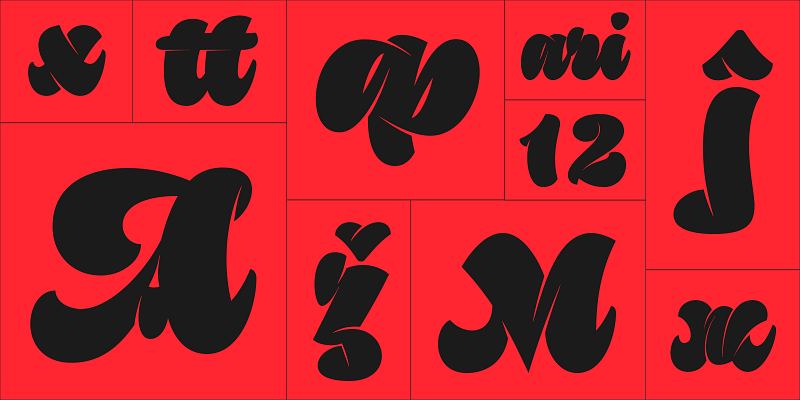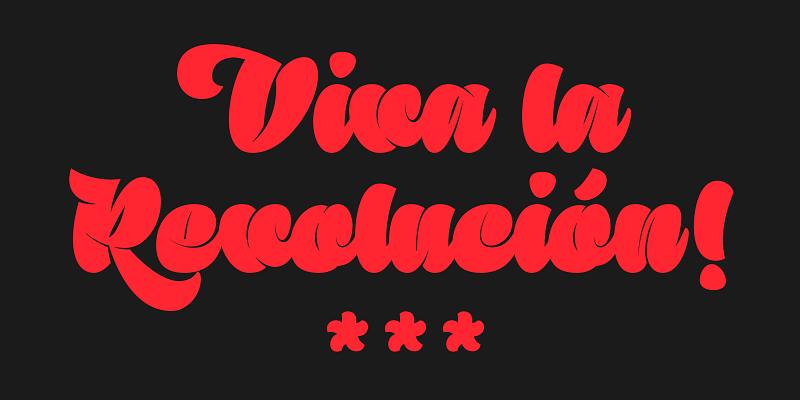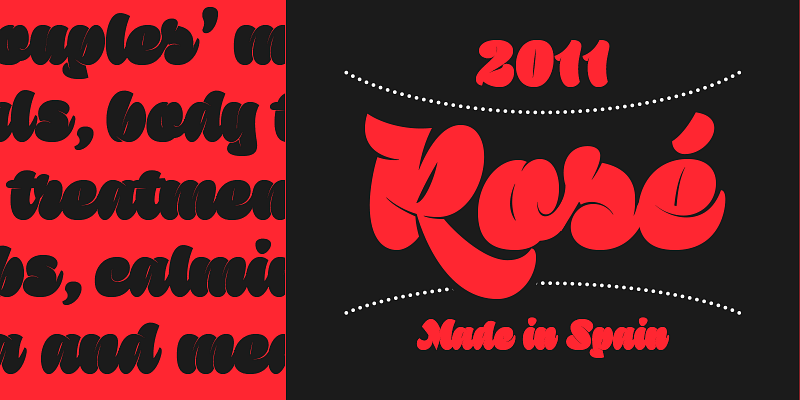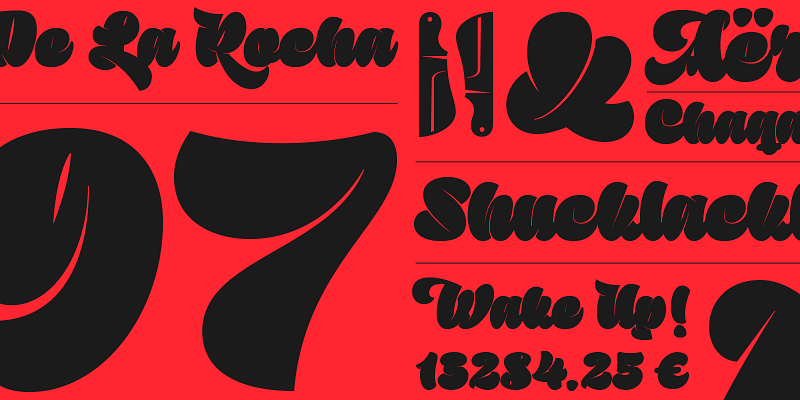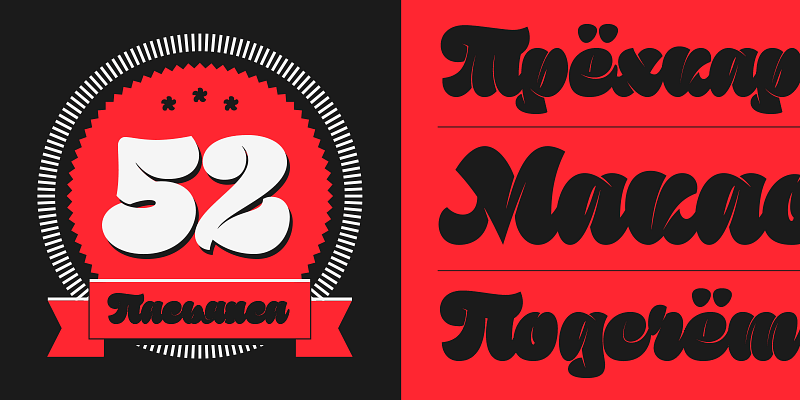
Sutturah is an ultrablack display font for poster and editorial design combining buoyant script-lettering style with audacious new explorations of radical text patterns.